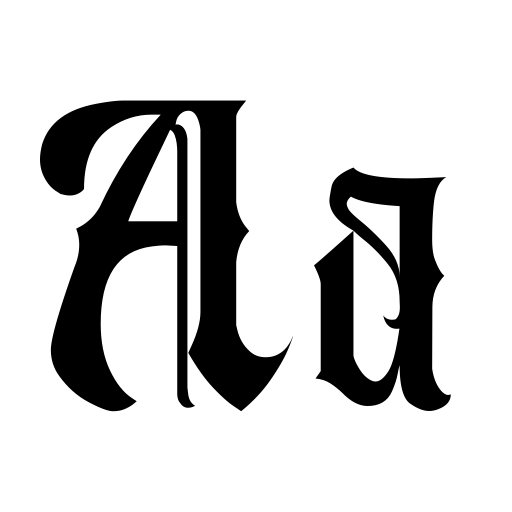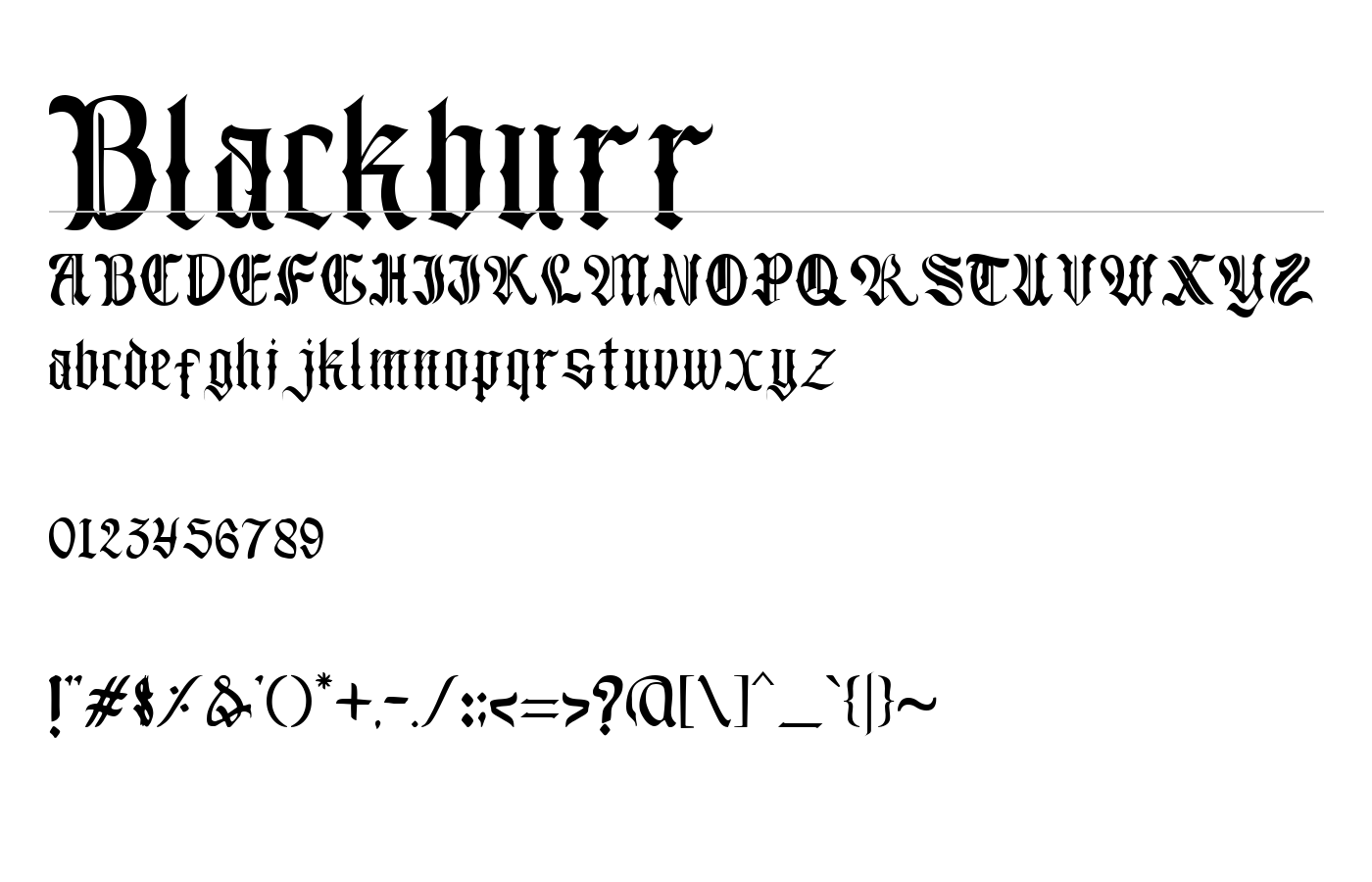
Blackburr is a bold, blackletter-style font with strong, angular strokes and high contrast between thick and thin lines, giving it a dramatic, vintage feel. Its ornate letterforms and sharp serifs evoke a sense of tradition and formality, making it a great choice for headlines, logos, and designs that want to convey heritage, strength, or gothic elegance. This font works particularly well in branding and editorial projects where a striking, old-world character is desired.
Blackburr Font
About Blackburr Font